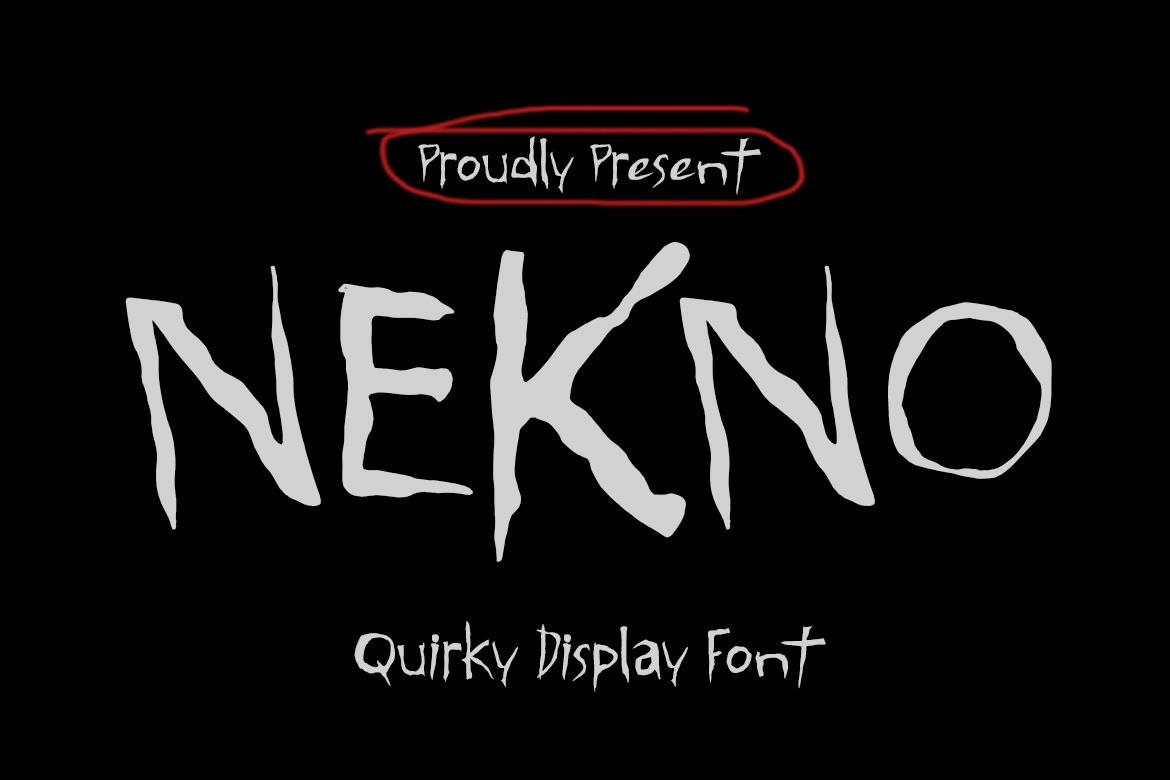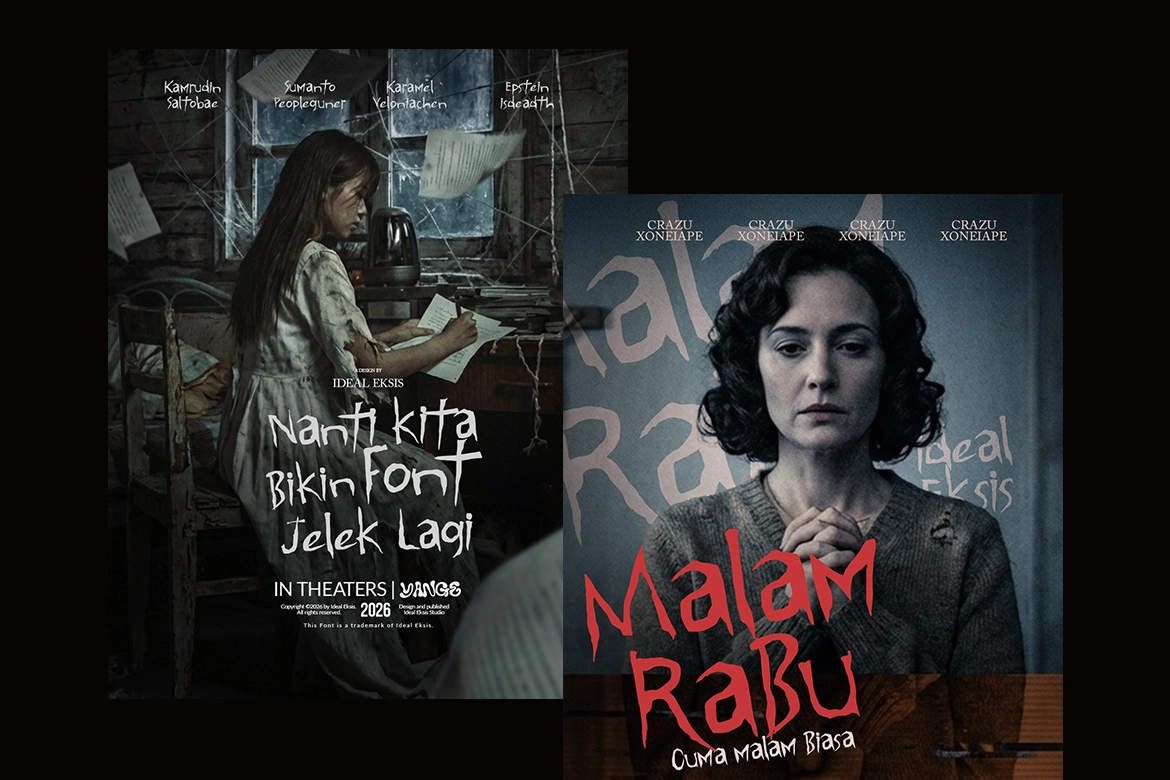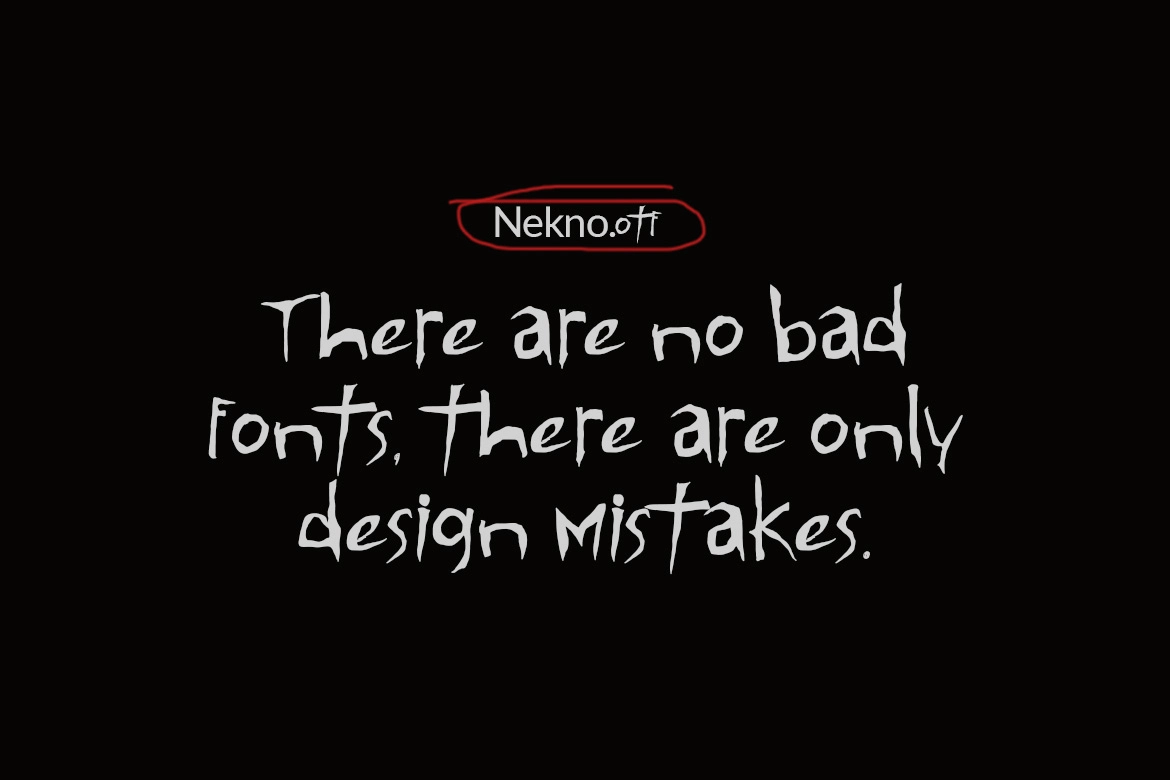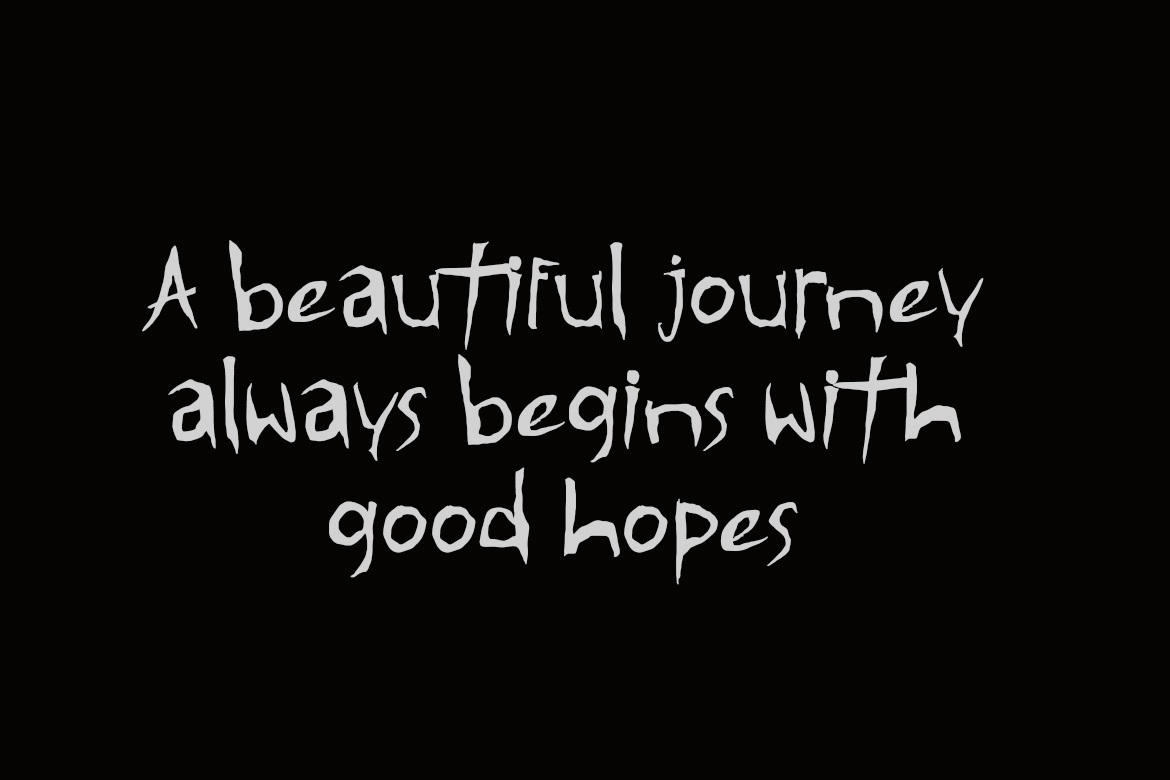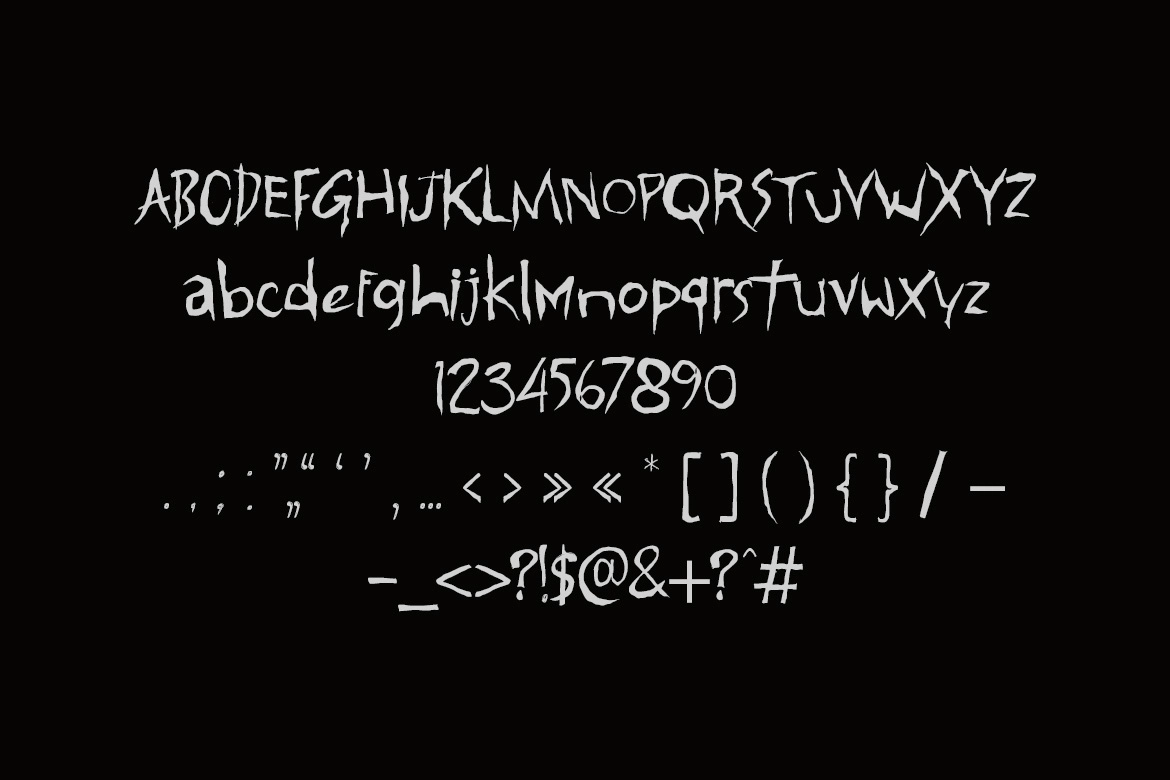
Nekno - Quirky Hand Drawn Display Font
Nekno – Quirky Hand Drawn Display Font is a bold, hand-drawn display font with a raw and unpredictable personality. Its jagged edges, uneven stroke widths, and sharp terminals create a restless, expressive rhythm that feels spontaneous and slightly eerie. Every letter carries an organic imperfection, giving your typography a distinctive handmade attitude.
Perfect for eye-catching headlines, movie posters, music artwork, street-inspired branding, and experimental design projects, Nekno delivers strong visual impact while maintaining readability. Its quirky and edgy character makes it ideal for creatives who want something unconventional and full of character.
• Hand-drawn display style
• Uppercase & lowercase
• Numerals
• Punctuation
• Bold, irregular letterforms